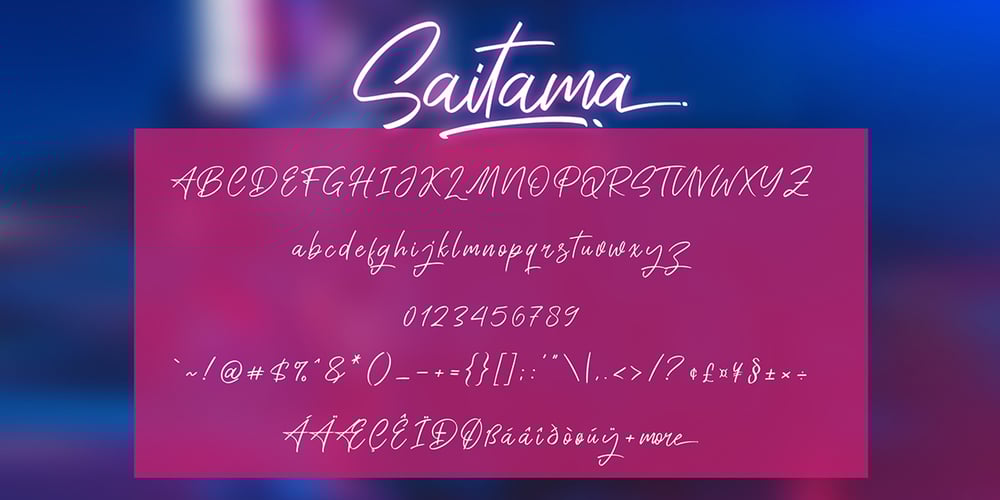
Saitama
Saitama font
Saitama Font Family was designed by Syaf Rizal and published by Khurasan. Saitama contains 1 styles and family package options. Saitama is a new calligraphy handwritten typeface, elegant and vintage feel character set. Saitama includes a full set capital and lowercase letters, as well as multi-lingual support, currency figures, numerals, punctuation & some extra glyphs. Thank you for checking and i hope you enjoy it. Always put your heart into it and don’t worry to try. I hope you have as much fun using it as i did making it. Khurasan